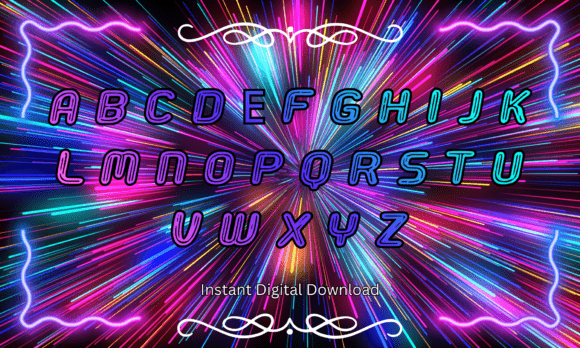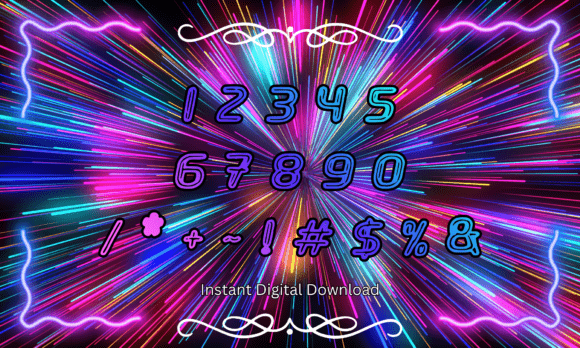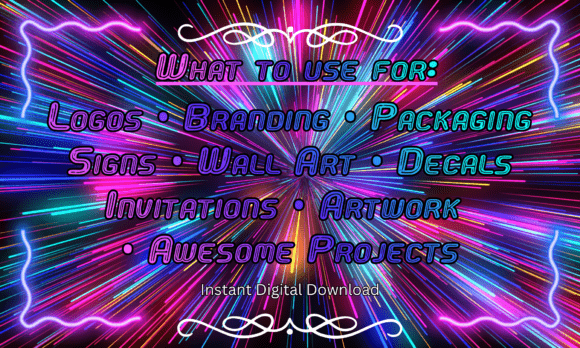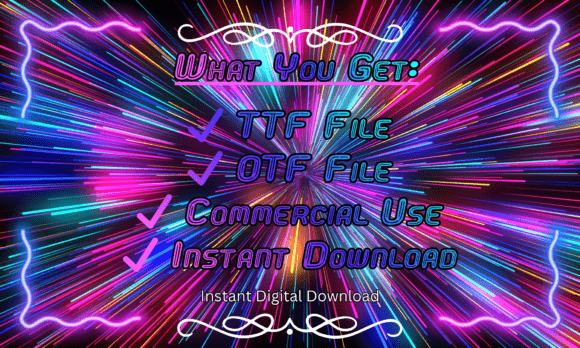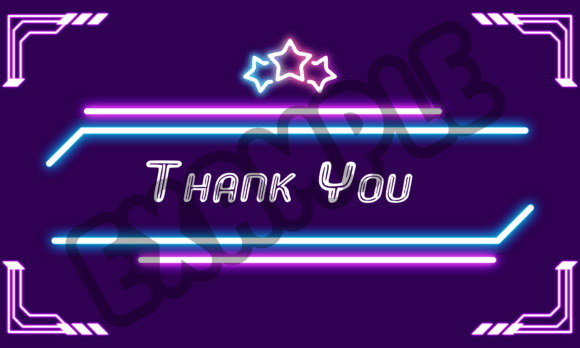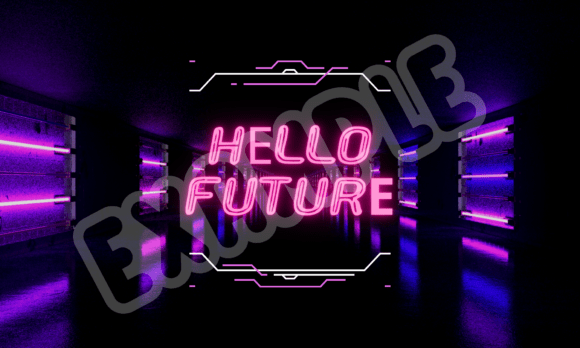
Light Up Your Designs with Electric Neon: The Ultimate Display Font
Are you looking for a font that will make your designs pop and leave a lasting impression? Look no further than Electric Neon, a bold, glowing display font that’s perfect for creators who want to add a touch of vibrant neon energy to their work. Inspired by electric lights, cyberpunk aesthetics, and gaming visuals, this font is designed to bring a powerful glow effect to any project.
What Makes Electric Neon Stand Out
Electric Neon is more than just a font – it’s an experience. With its eye-catching neon glow effect, this font is perfect for designs that need to stand out from the crowd. Whether you’re working on a gaming logo, neon sign, or digital art piece, Electric Neon is the perfect choice. Its strong readability and style make it ideal for use on dark backgrounds, and its modern digital aesthetics ensure that your designs will look fresh and cutting-edge.
Perfect for Creators Who Want to Make an Impact
Electric Neon is perfect for creators who want to make an impact with their designs. Whether you’re a gamer, digital artist, or marketer, this font is designed to help you create high-impact designs that feel alive, colorful, and bold. With Electric Neon, you can add a touch of futuristic style to your work and take your designs to the next level.
Use Electric Neon for:
• Gaming Logos & Stream Graphics: Add a touch of neon energy to your gaming logos and stream graphics with Electric Neon.
• Neon Signs & Digital Art: Create stunning neon signs and digital art pieces with Electric Neon.
• Branding & Packaging: Use Electric Neon to add a touch of modern style to your branding and packaging designs.
• Stickers & Merch: Create eye-catching stickers and merchandise with Electric Neon.
• Posters & Flyers: Use Electric Neon to create bold and eye-catching posters and flyers.
• Social Media Content: Add a touch of neon energy to your social media content with Electric Neon.
• Uppercase Letters: Get access to uppercase letters to create bold and eye-catching designs.
• Numbers & Symbols: Get access to numbers and symbols to add a touch of realism to your designs.
Font Style
Electric Neon is a unique and stylish font that’s designed to bring a touch of neon energy to your designs. With its:
• Neon Glow: Get a bold and eye-catching neon glow effect with Electric Neon.
• Vibrant Gradient: Add a touch of vibrant gradient to your designs with Electric Neon.
• Cyberpunk / Gaming: Get a font that’s inspired by cyberpunk aesthetics and gaming visuals.
• Futuristic Display: Use Electric Neon to create futuristic display designs that feel modern and cutting-edge.
• High Energy / Bold: Add a touch of high energy and bold style to your designs with Electric Neon.